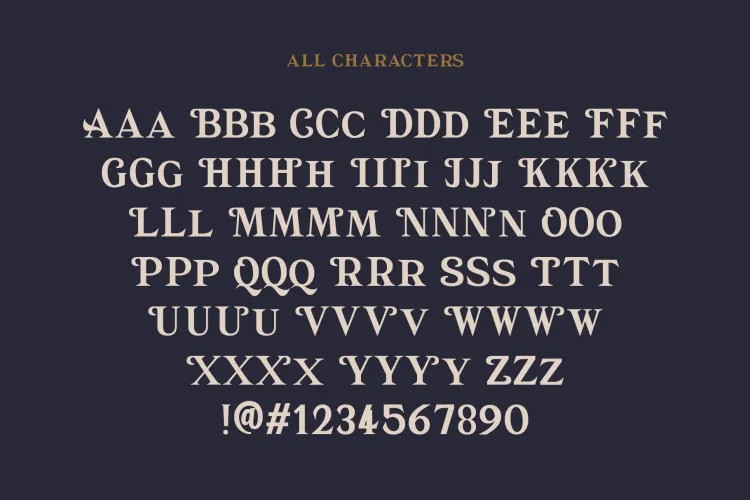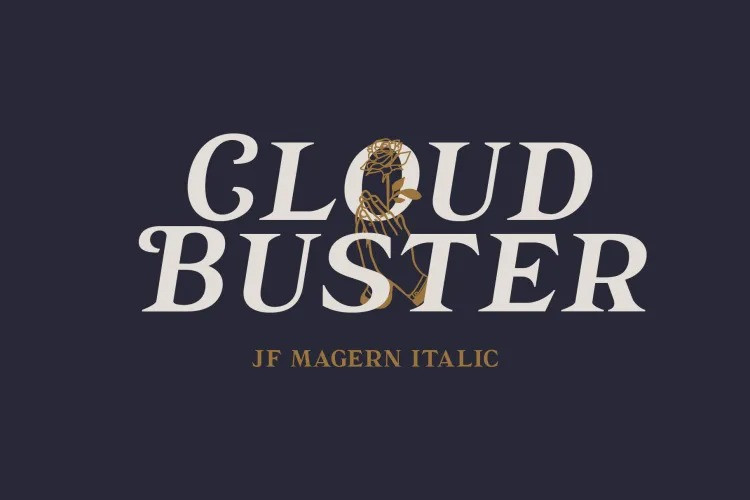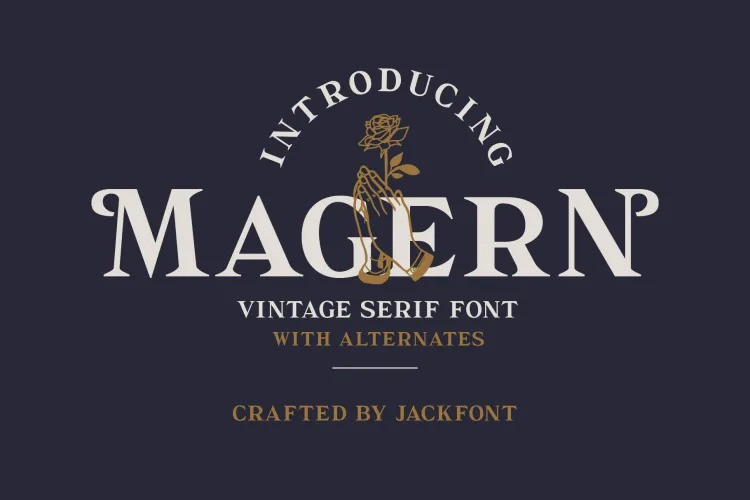
JF Magern Font
JF Magern Font is a vintage serif font that comes in two styles – regular and italic, each with alternates to offer flexibility in design. Its elegant and timeless look makes it ideal for a range of design projects, from vintage and classic to modern and sophisticated. JF Magern’s letterforms are carefully crafted to balance curves and sharp edges, creating a unique personality that is both distinctive and versatile. Its harmonious spacing and kerning, combined with its legibility, make it perfect for editorial projects such as books, magazines, and posters. With its range of styles and alternates, JF Magern is a valuable addition to any designer’s font collection.